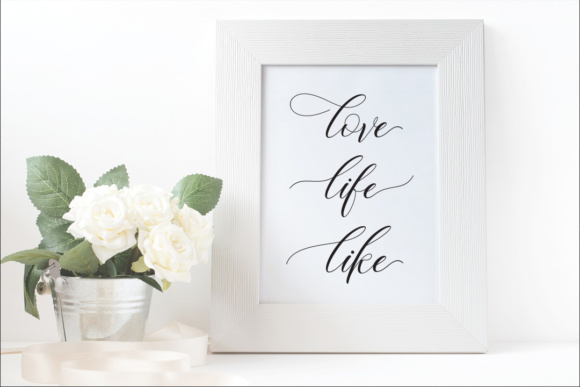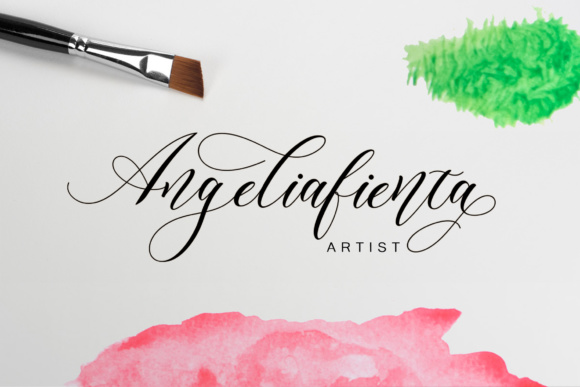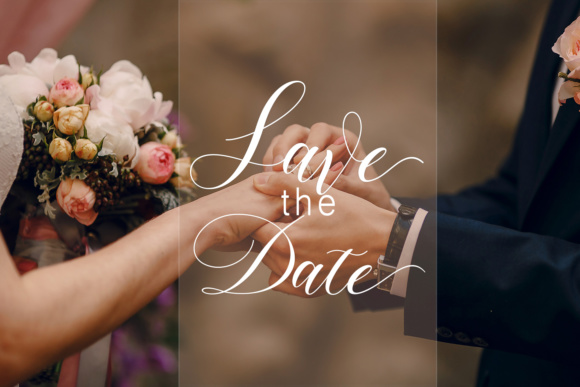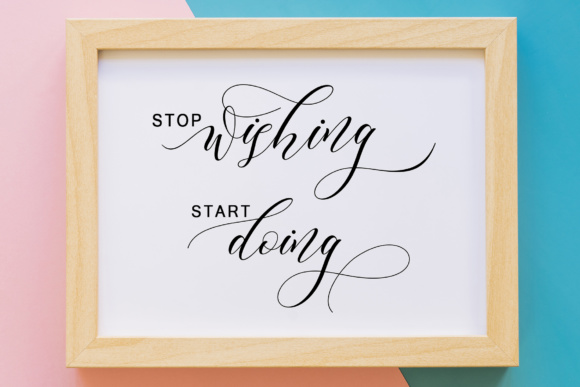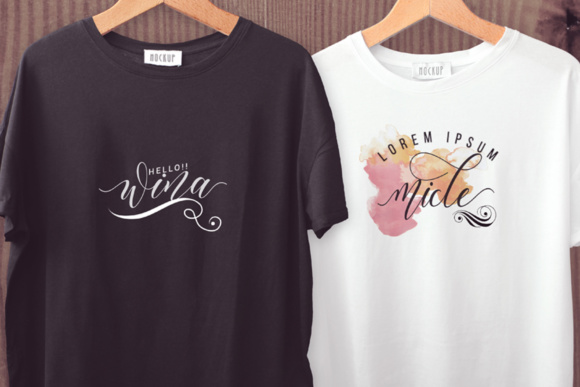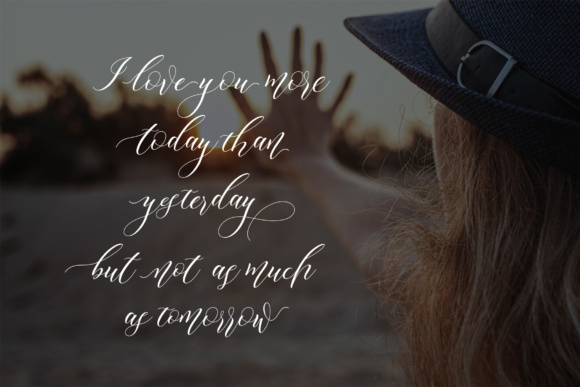
Introduction to Lorriana Font
Have you ever stared at a blank canvas, waiting for inspiration to strike, only to find yourself doodling elegant script after script in hopes of sparking the perfect creative moment? That’s exactly what happened to me when I discovered the stunning Lorriana Font. Its beautiful modern calligraphy script, complete with swashes and elegance, instantly captured my attention and left me wondering how I ever lived without it.
As a designer, having access to high-quality design resources like Lorriana Font can make all the difference in bringing a creative project to life. With its versatility and sophistication, this font is perfect for print design, serving as the headlining focal point to your projects. And the best part? It’s available for free download, making it an invaluable asset for designers looking to elevate their work.
Whether you’re working on a personal project or collaborating with clients, Lorriana Font is a valuable addition to any design toolkit. Its transparent background and high-quality design make it a seamless fit for any creative endeavor, from wedding invitations to branding materials.
Key Features of Lorriana Font
- High-quality, vector-based font design ideal for creative projects.
- Includes a transparent background, allowing for easy integration into various design elements.
- Designed with a unique, elegant style that can add a touch of sophistication to any creative project.
Honest Review: Lorriana Font
As a designer, I’m always on the lookout for high-quality design resources that can elevate my creative projects. The Lorriana Font has been a welcome addition to my collection. What works well is the font’s versatility – it’s perfect for a range of projects, from elegant invitations to modern website headers.
One of the standout features of the Lorriana Font is its transparent background, making it easy to customize and layer with other design elements. This level of flexibility is a game-changer for designers looking to create unique and visually appealing designs. The free download option is also a major plus – it’s a great resource for designers on a budget or those just starting out.
- Perfect for creative projects, from invitations to website headers
Overall, I’m thoroughly impressed with the Lorriana Font. It’s a valuable addition to any designer’s toolkit, and I’d highly recommend it to anyone looking for a reliable and versatile design resource. ⭐️⭐️⭐️⭐️⭐️
One minor limitation of the Lorriana Font is its limited character set – it’s not as comprehensive as some other fonts I’ve worked with. However, this is a minor quibble, and the font’s strengths far outweigh its weaknesses. ⚠️
Lorriana Font
Tips for Getting the Most Out of Lorriana Font
To get the most out of the Lorriana Font, experiment with different font sizes, colors, and combinations to create unique and visually appealing designs. You can also use the font in conjunction with other design elements, such as images and graphics, to add depth and interest to your design.
Common Use Cases for Lorriana Font
The Lorriana Font is a versatile design resource that can be used in a variety of creative projects, including social media graphics, presentations, and documents. Its high-quality design and transparent background make it an ideal choice for designers looking to add a touch of sophistication and elegance to their work.